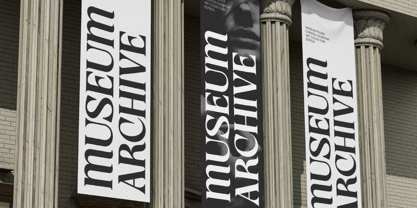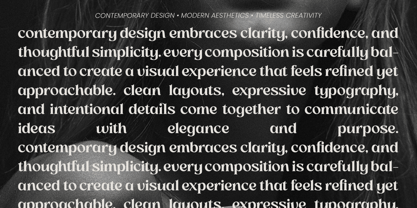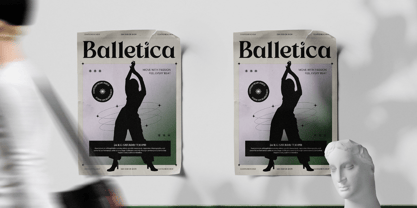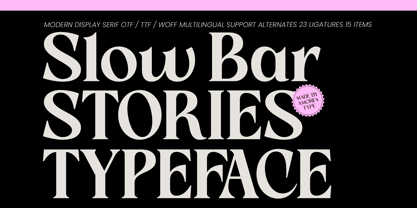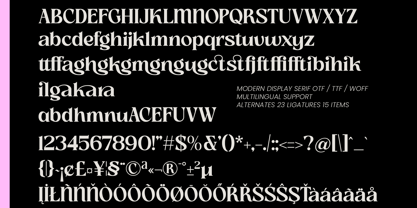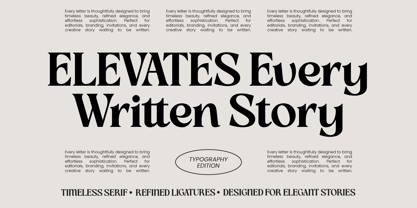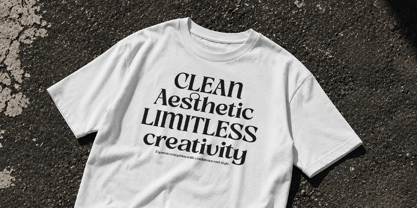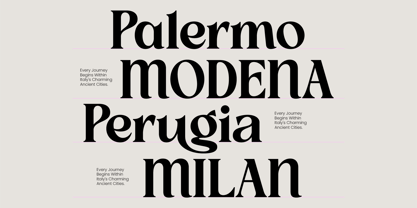
Slow Bar Stories
by Amorfa Type
The Slow Bar Stories Font Family was designed by Shiddiq Roihan and published by Amorfa Type. Slow Bar Stories contains 2 styles and family package options. More about this family
Slow Bar Stories is a modern display serif typeface designed with refined proportions, contemporary elegance, and a strong editorial presence. Crafted to deliver sophistication and clarity, this typeface combines timeless serif craftsmanship with modern design sensibilities, creating typography that feels confident, stylish, and visually memorable.